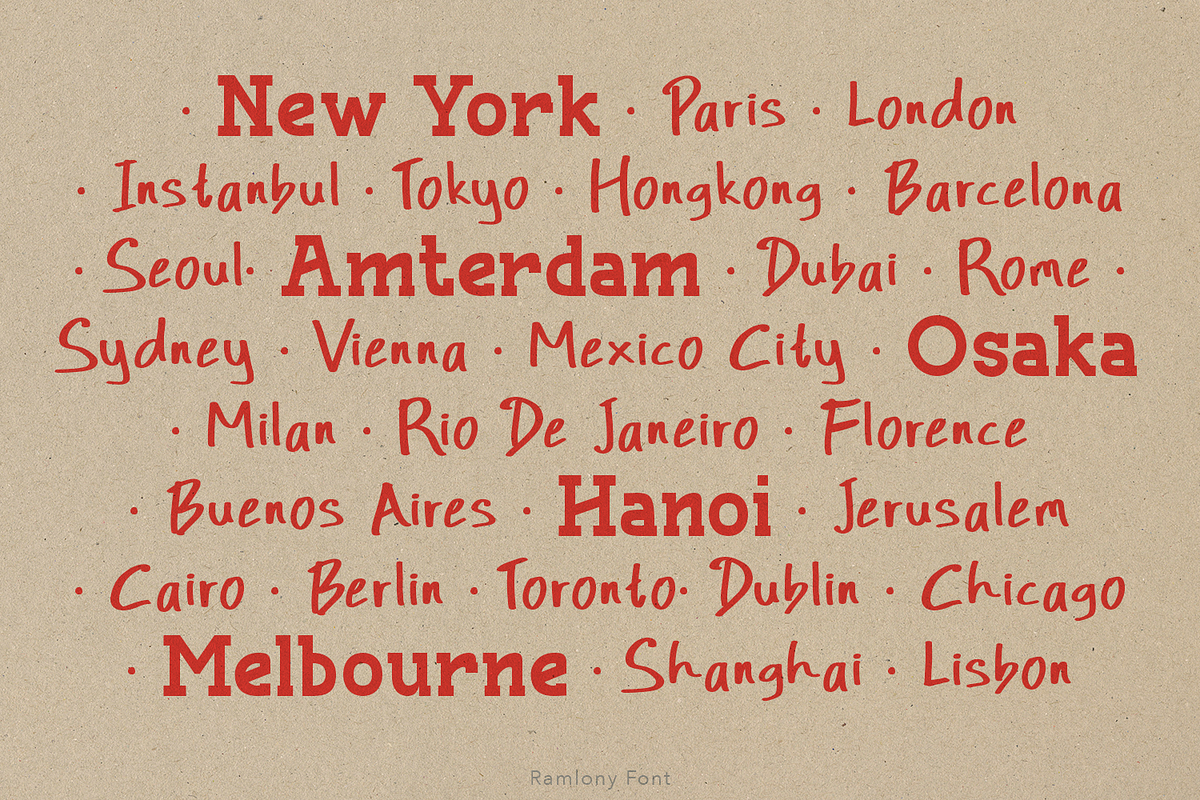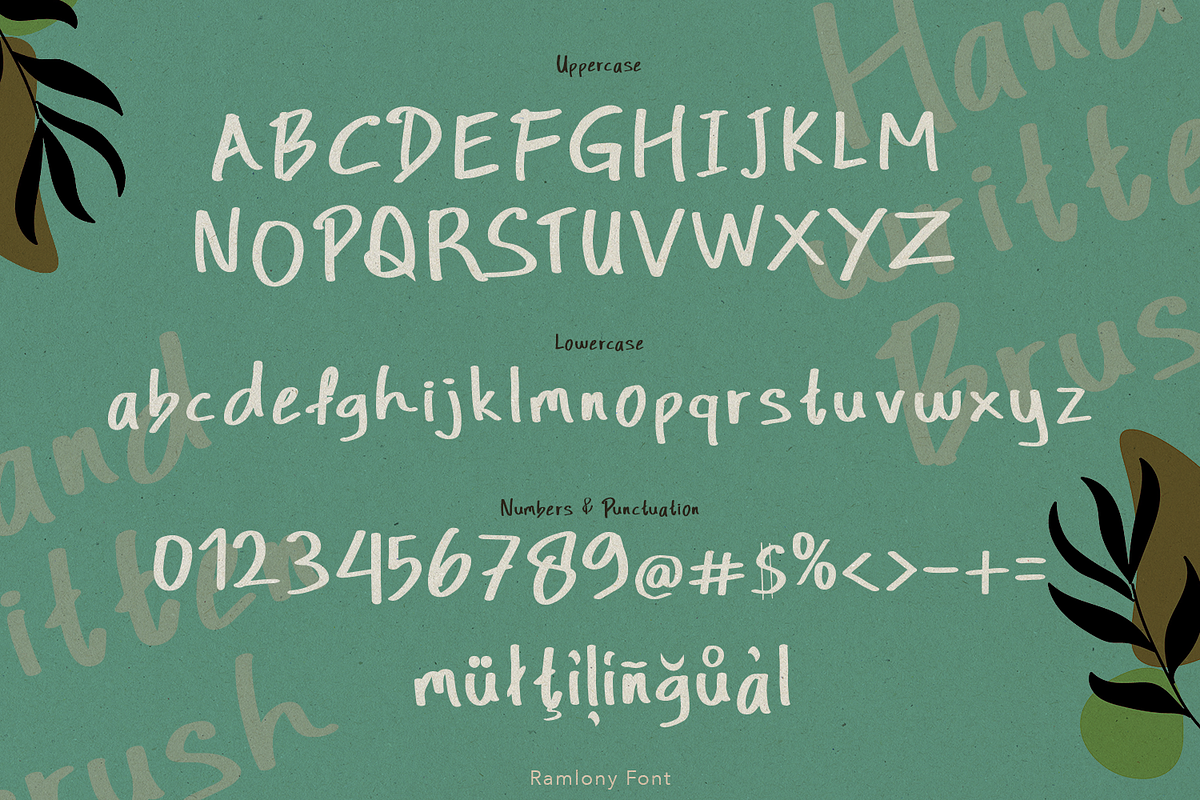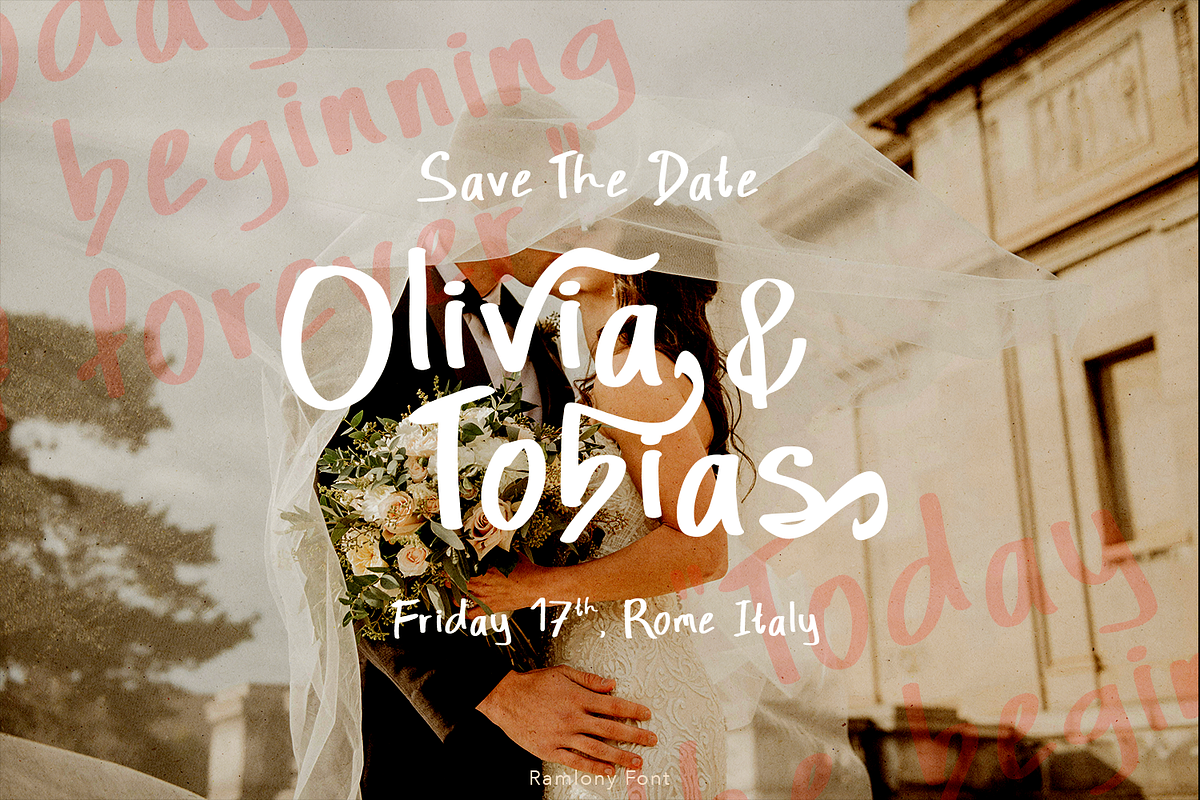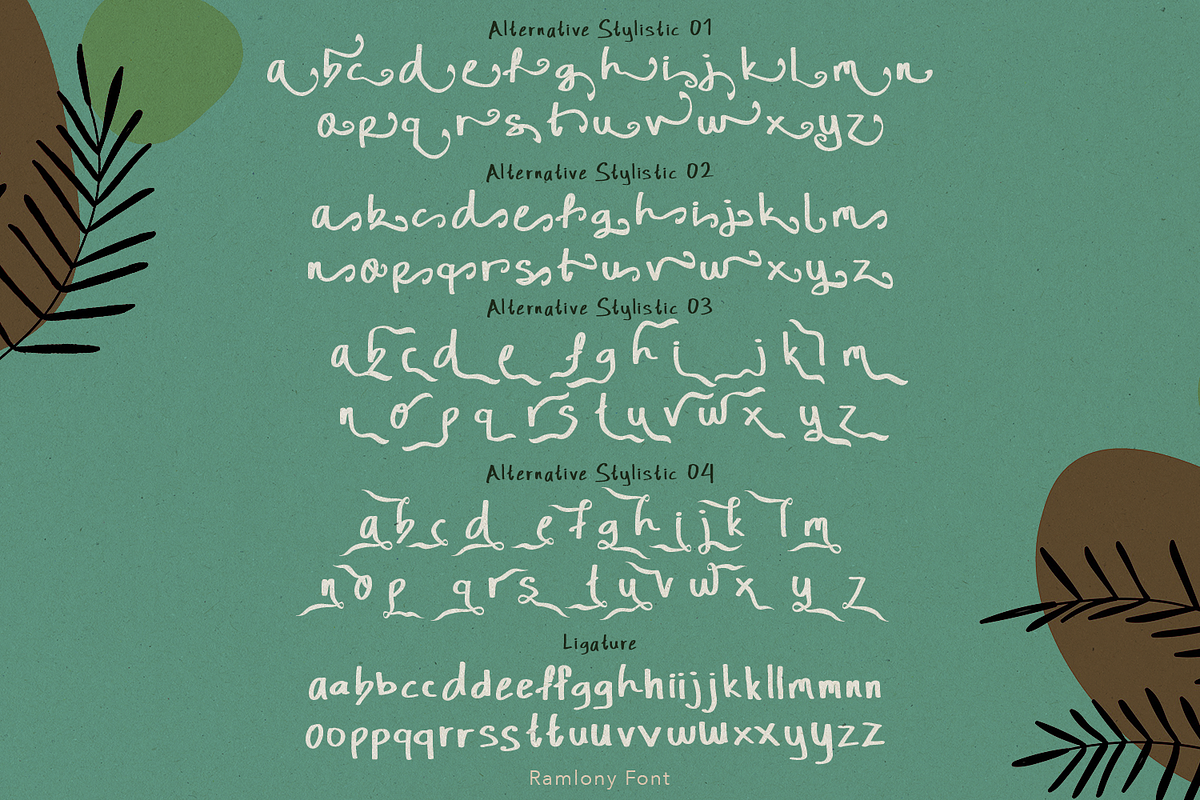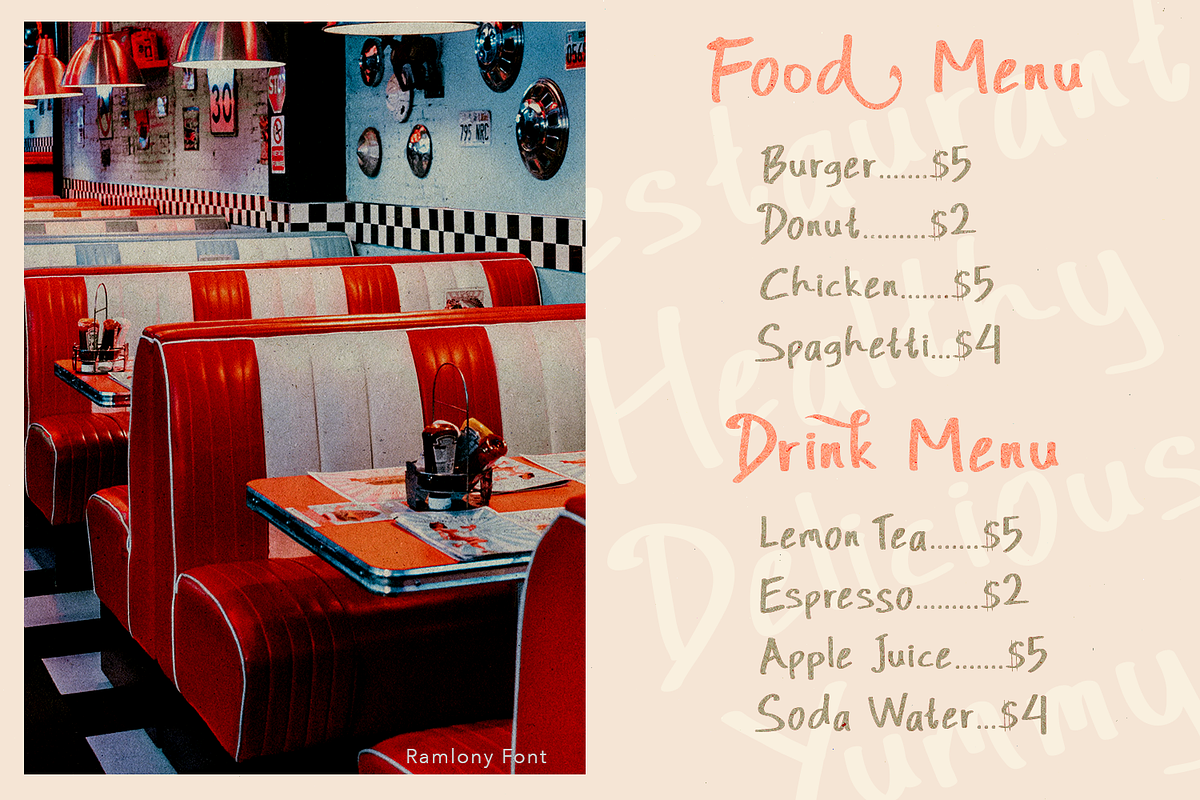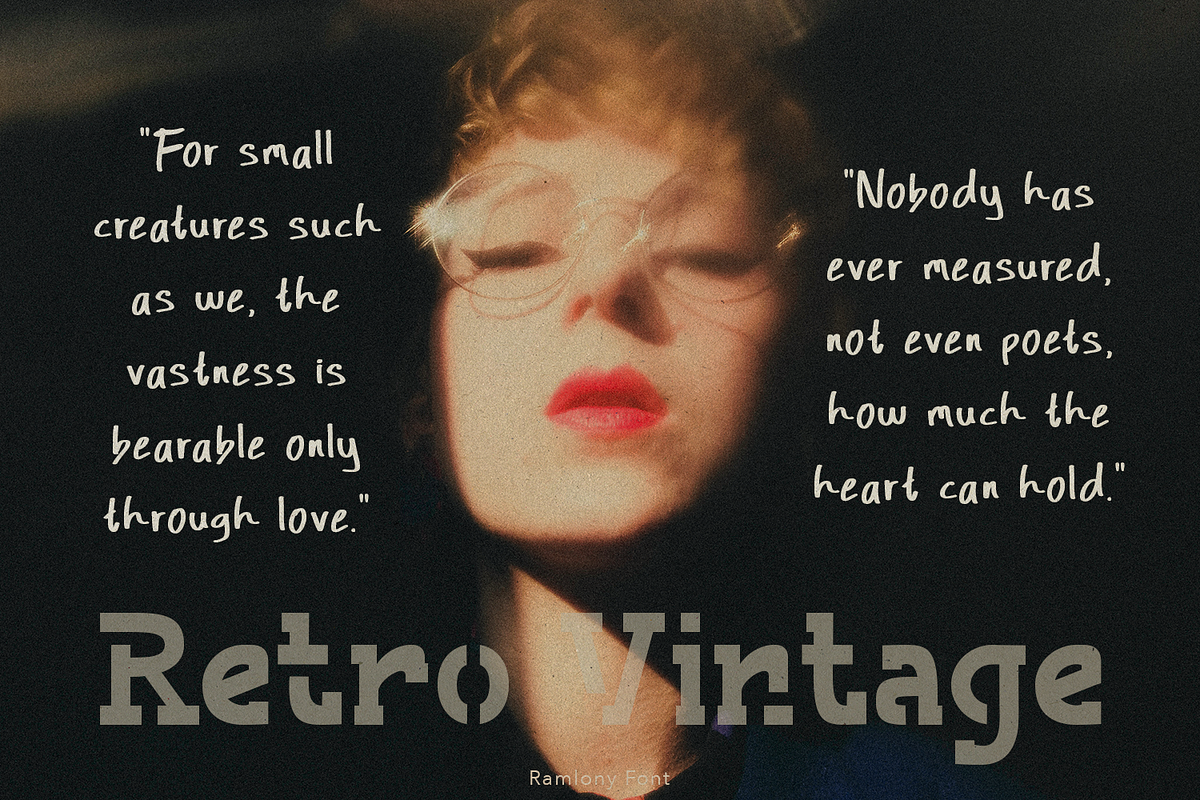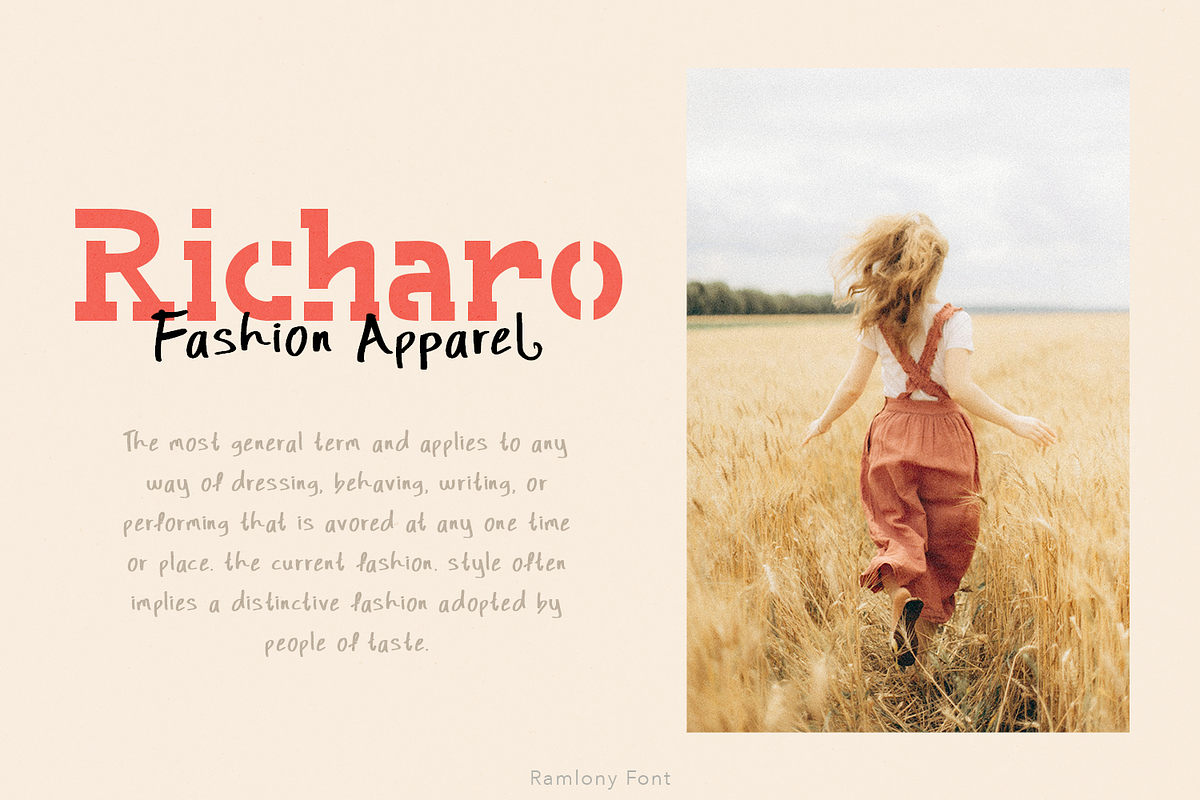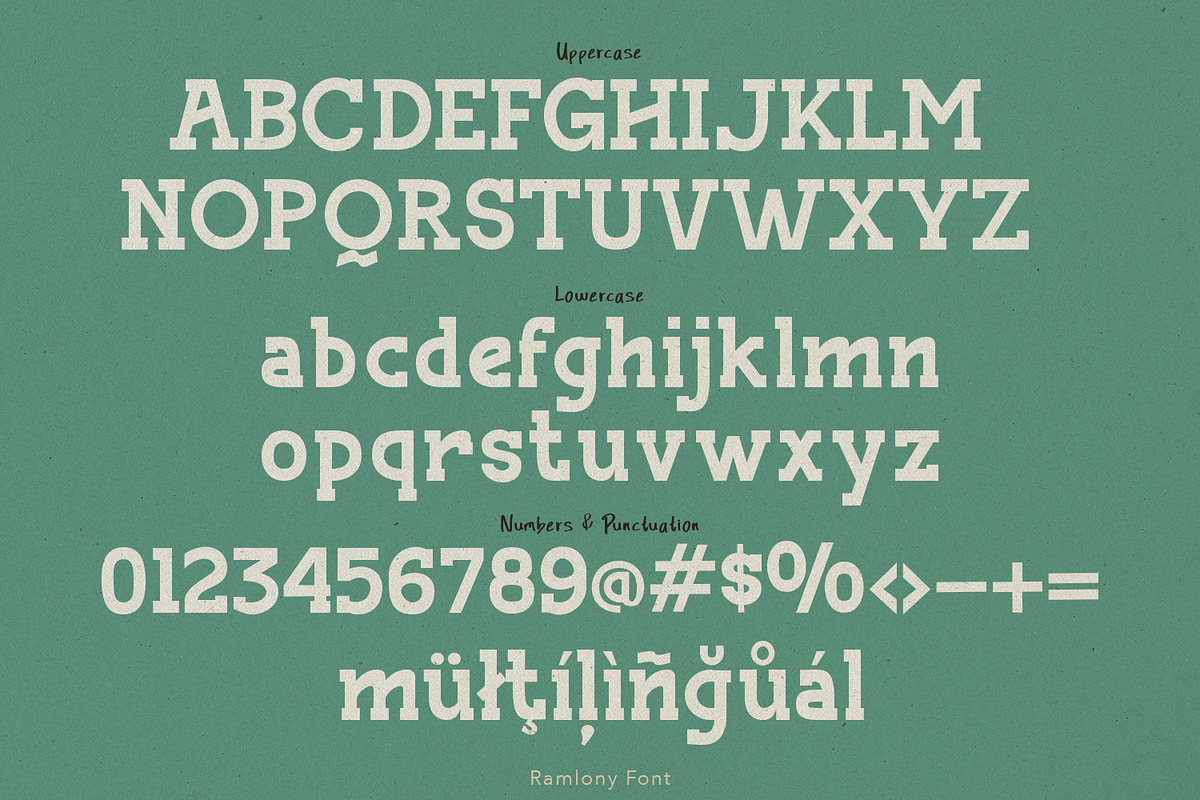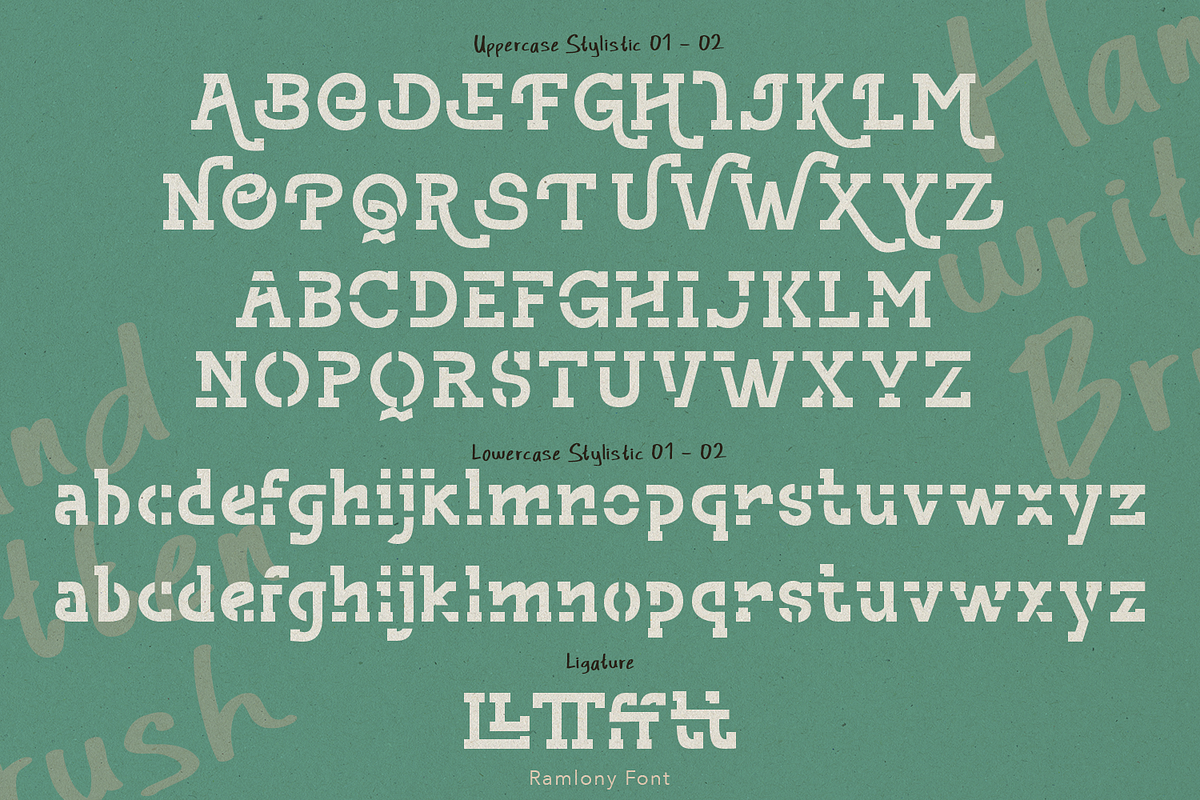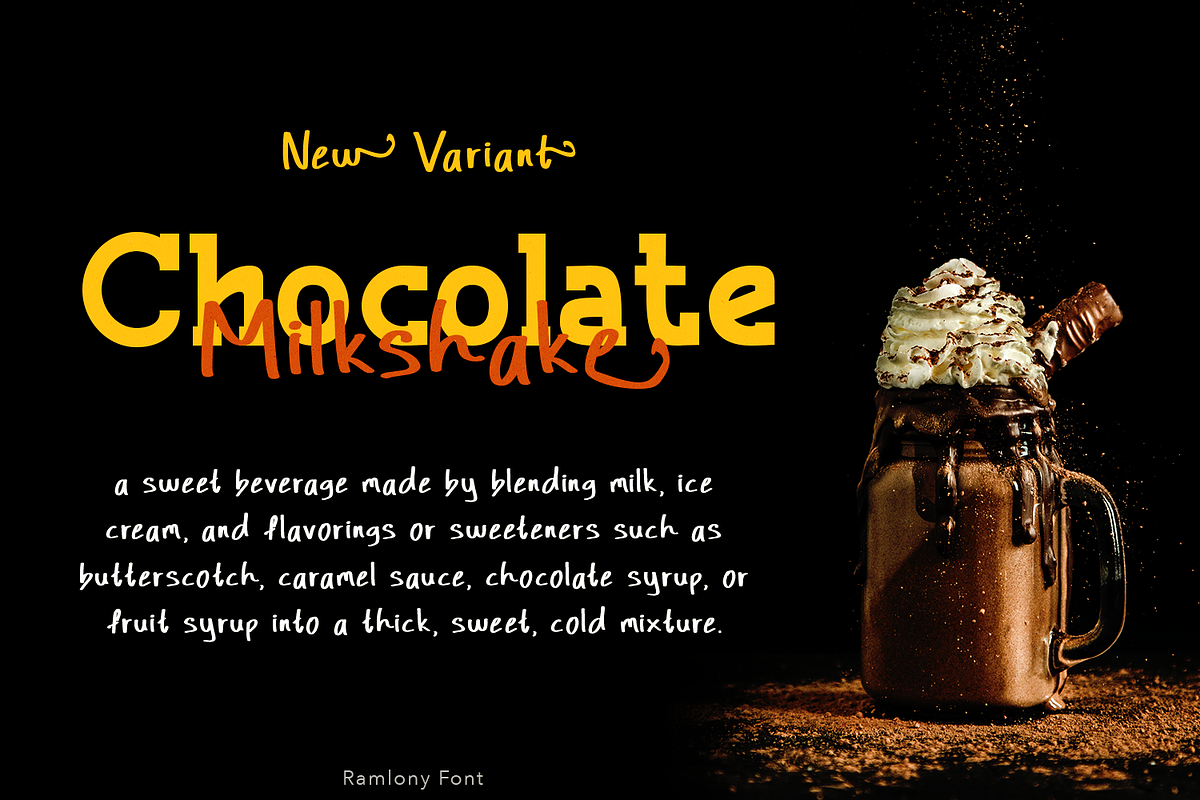
Ramlony Font Duo
Ramlony font duo features a delicate handwritten script, resembling the look of authentic, natural brush. Paired with a slab font, it creates a balanced, refined look that complements the script beautifully. This font is perfect for branding, web titles, logos, quotes, movie titles, and more.
- International Glyphs